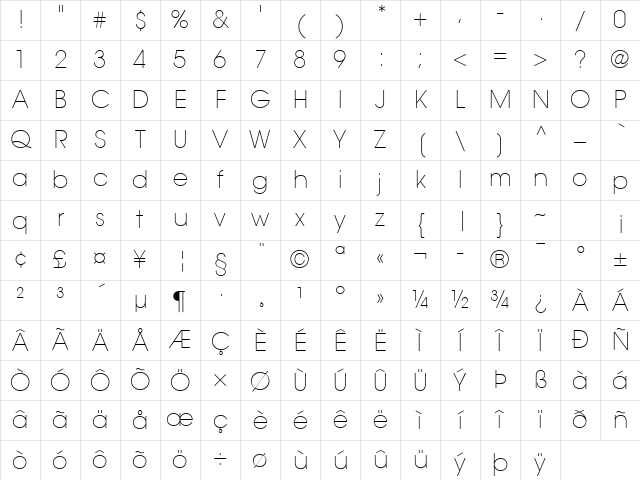
AvantGarde LT ExtraLight Regular
Design Context for AvantGarde LT ExtraLight
AvantGarde LT ExtraLight is a composed and adaptable typeface that performs quietly and consistently across a wide range of design contexts. Its slender proportions lend an understated elegance to any composition.